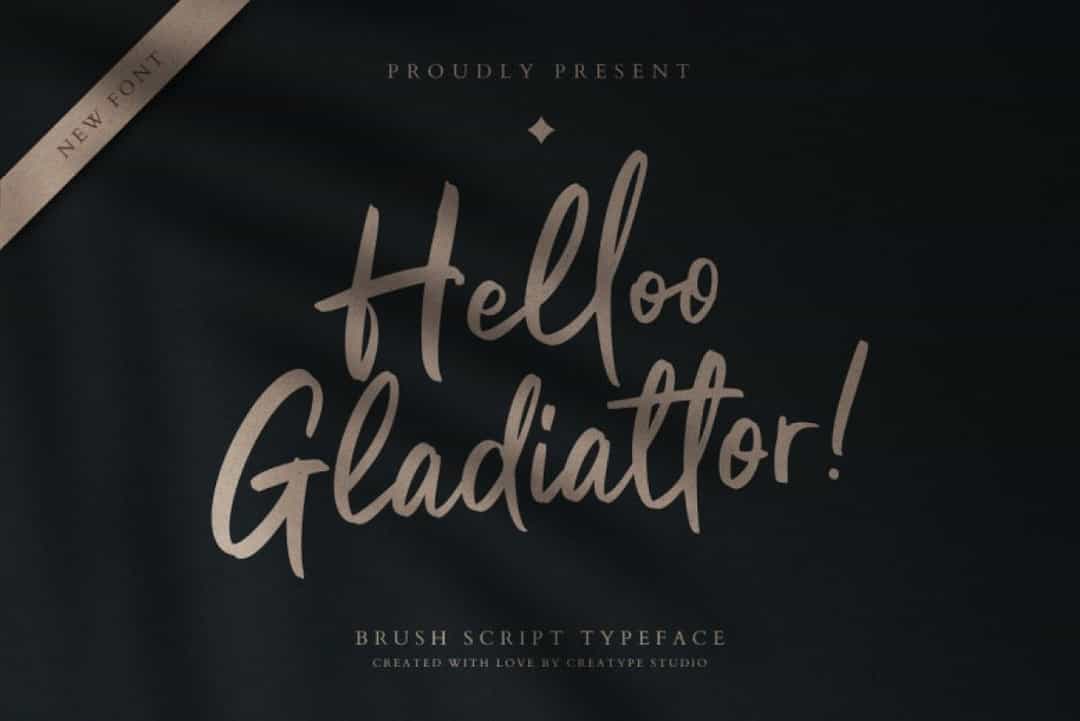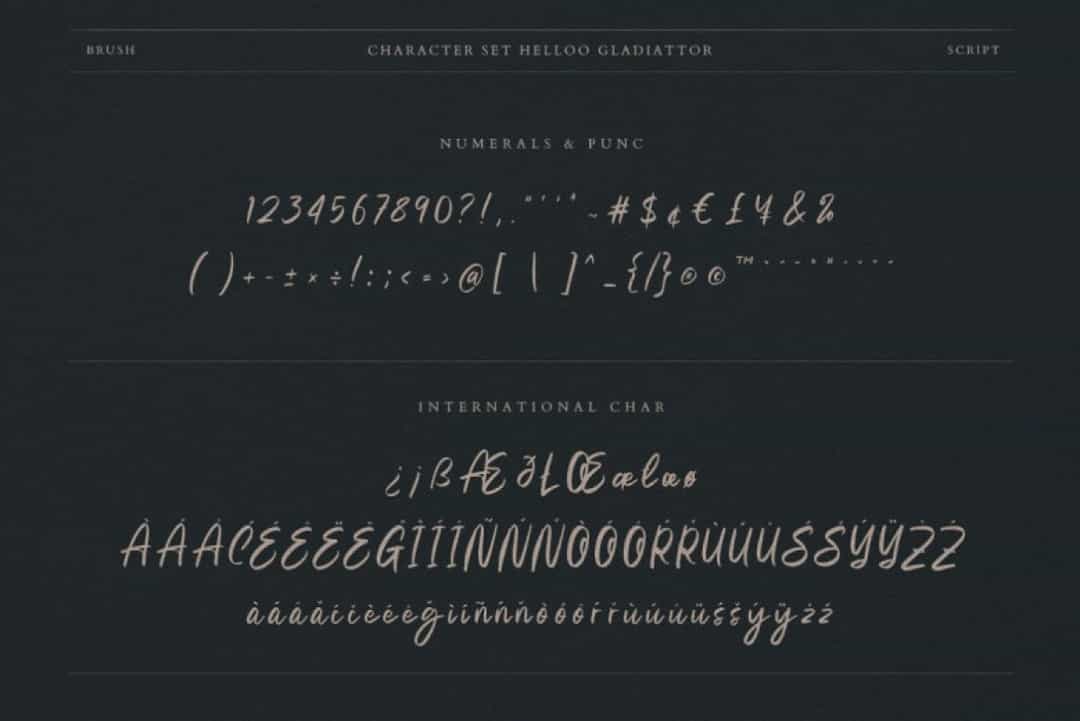
Helloo Gladiattor is an elegant brush script typeface created with skilled hands, boasting beautiful and refined forms. Perfect for all projects of all sorts. Helloo Gladiattor is ideal for branding, logo design and wedding invitation projects such as social media posts, advertisements, package design of products (labels), photo watermarking as well as invitations requiring handwriting skills from an experienced writer.